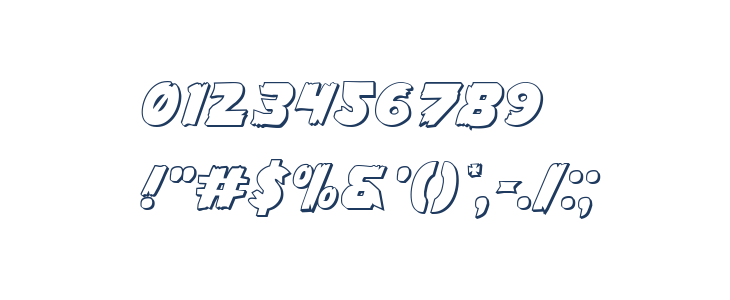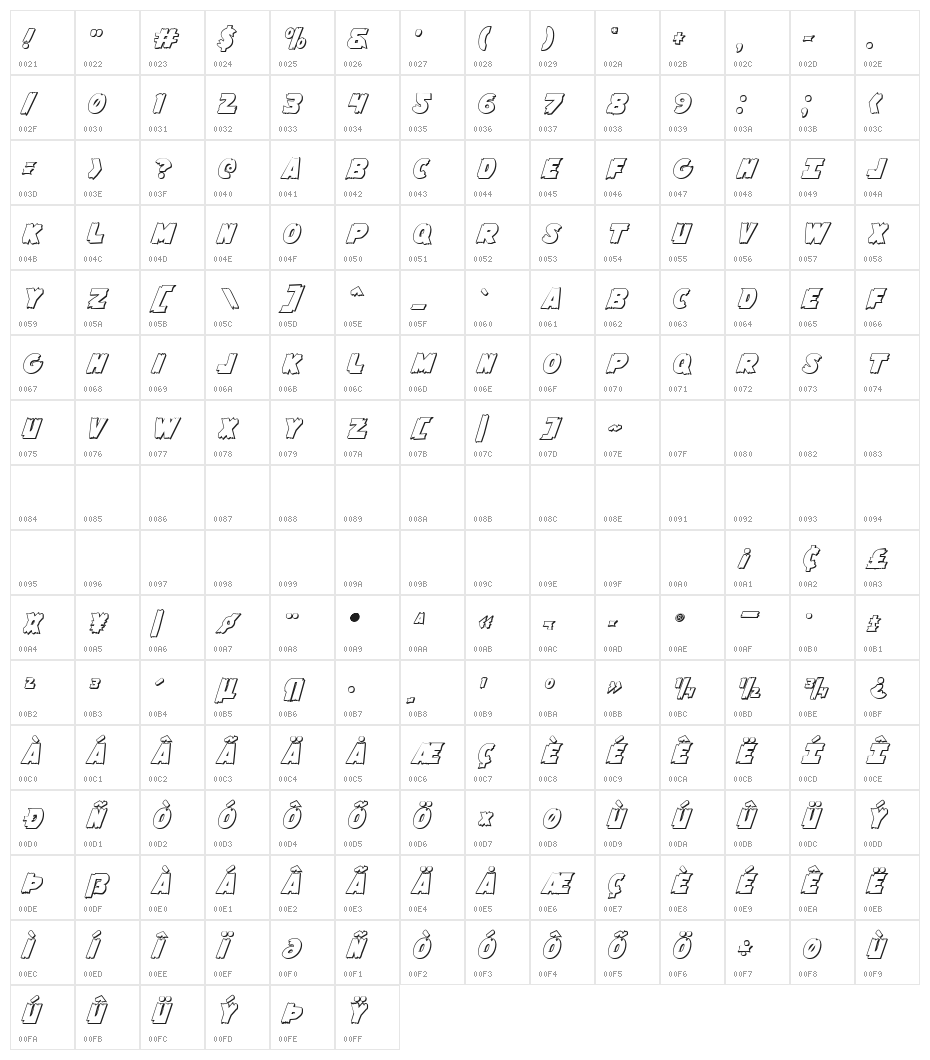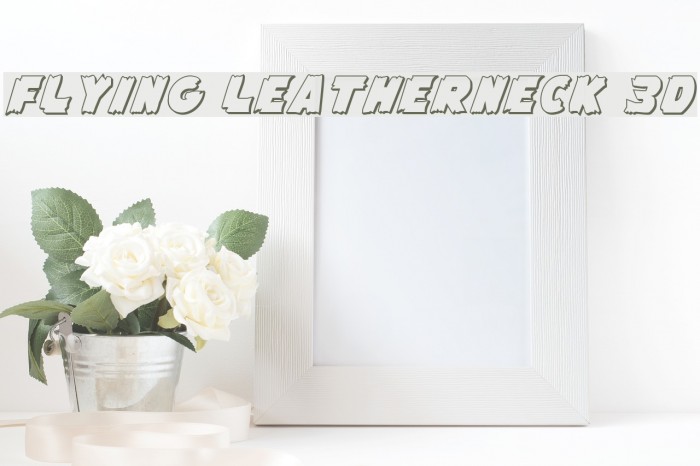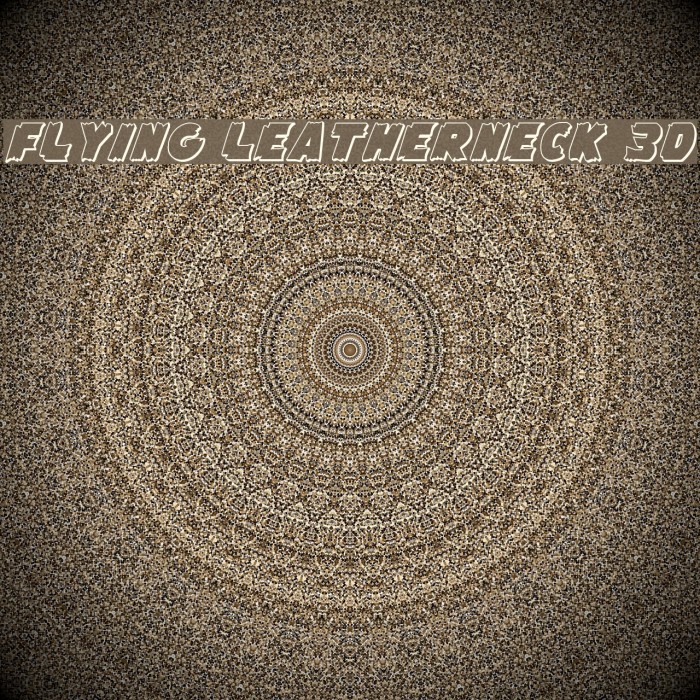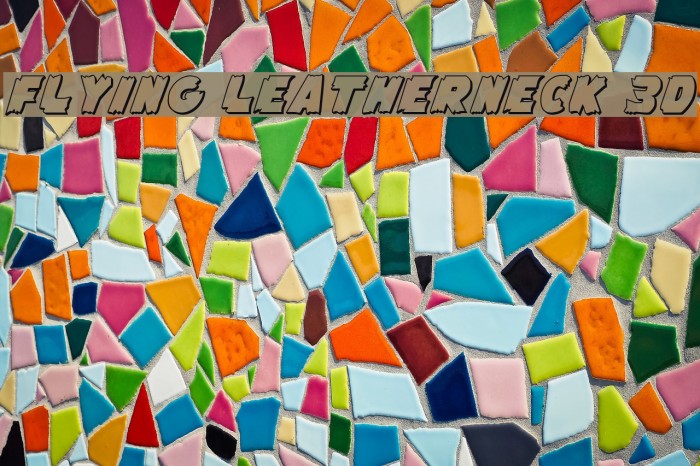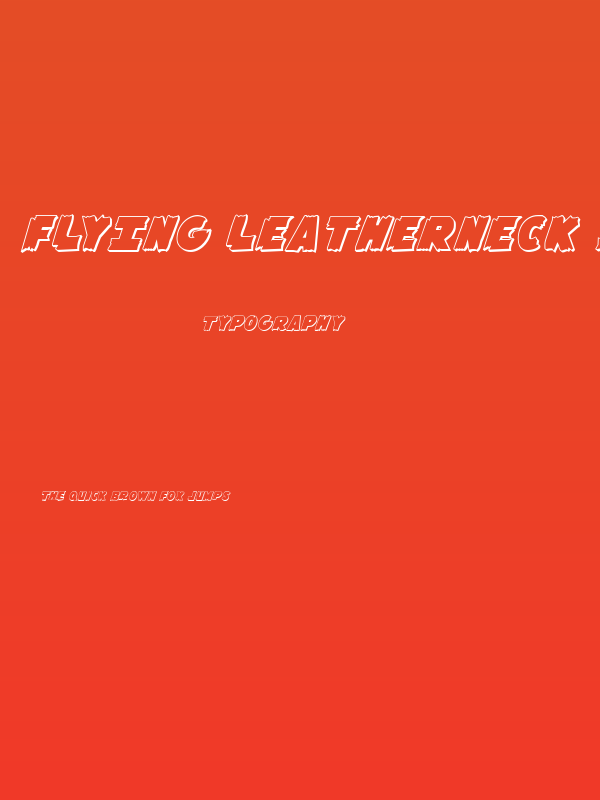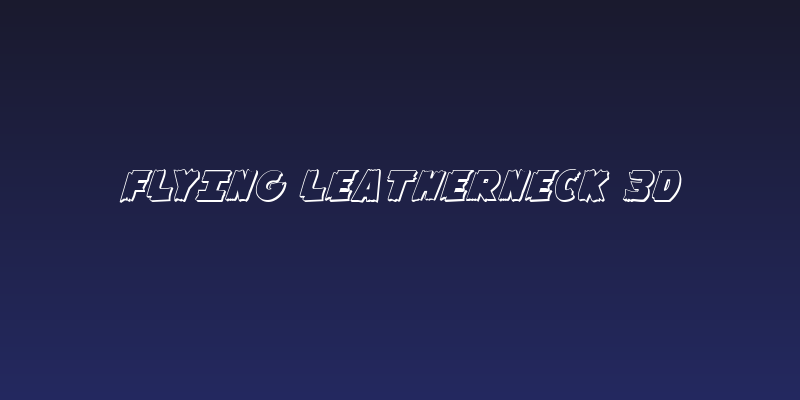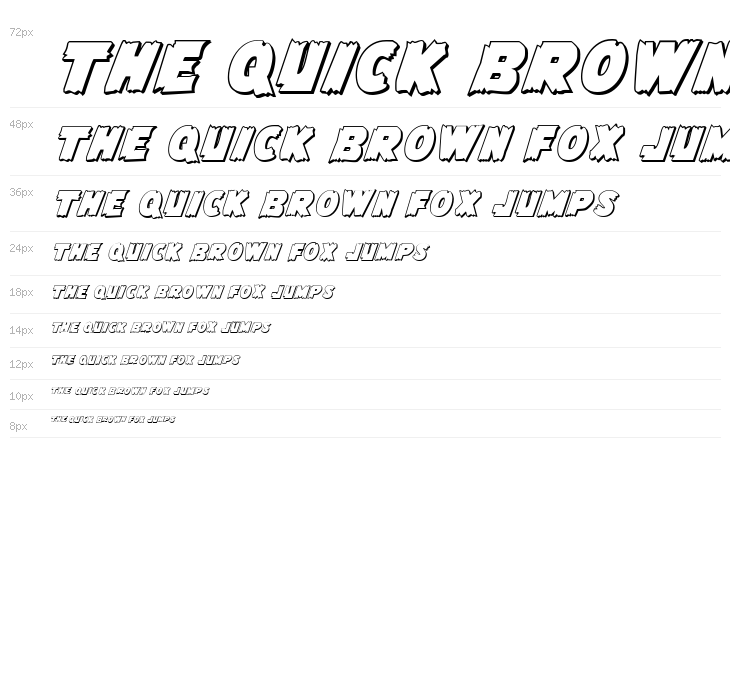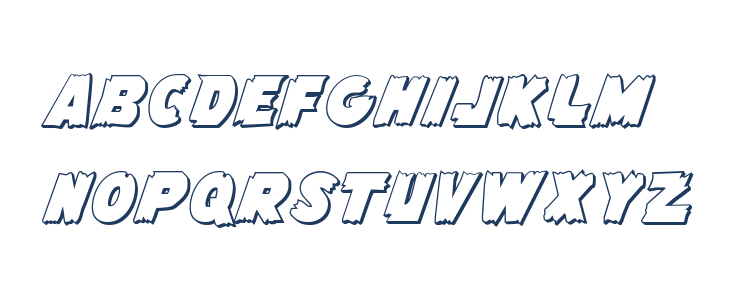
Flying Leatherneck 3D Font
Flying Leatherneck 3D Description
This font features a bold and dynamic 3D effect, with each character appearing to leap off the page. The design is characterized by sharp, angular edges and a rugged, distressed texture that adds a sense of movement and energy. The uppercase and lowercase letters maintain a consistent style, with the numbers and special characters following suit. The font's unique appearance makes it stand out, capturing attention with its bold presence and playful yet edgy aesthetic.